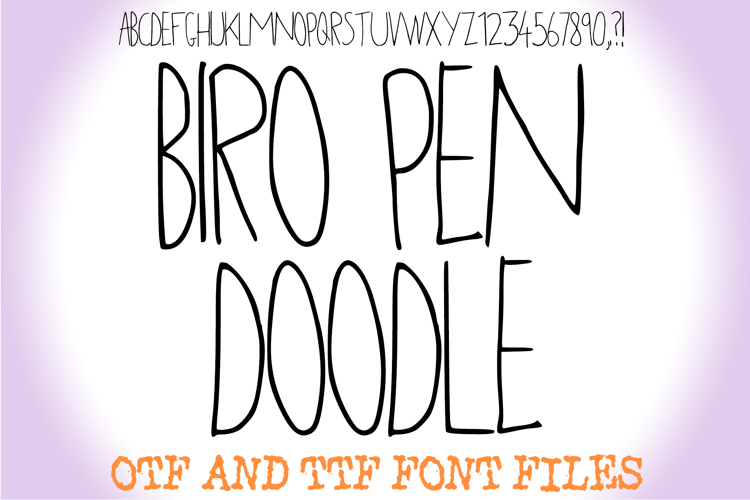
Biro Pen Doodle Handwriting Lettering ABC Font Typeface
Infuse your designs with an authentic, everyday charm and effortless personality using Biro Pen Doodle Font! This wonderfully approachable typeface perfectly captures the spontaneous, relaxed feel of a quick note or a friendly doodle made with a ballpoint pen. It's more than just a font; it's an instant dose of warmth and individuality, designed to bring a unique touch to any creative project.
Each character in Biro Pen Doodle Font is crafted with a light, fluid stroke and a charmingly irregular, hand-drawn quality, as if quickly jotted down with a favorite Biro. Its informal yet clear forms make it an ideal choice for branding, social media posts, journal layouts, casual invitations, children's activities, or any design calling for a unique blend of simplicity and warmth.
Whether you're creating engaging content, adding a custom feel to digital products, crafting cheerful messages, or printable materials, this font will bring an undeniable sense of fun, originality, and a handmade aesthetic to your work. Its clear yet playful lines ensure readability while delivering a memorable visual experience.
If you're looking to infuse your designs with a sense of playful authenticity, charming simplicity, and an undeniable unique touch, Biro Pen Doodle Font is your ultimate tool. Grab your digital pen and let your ideas flow!